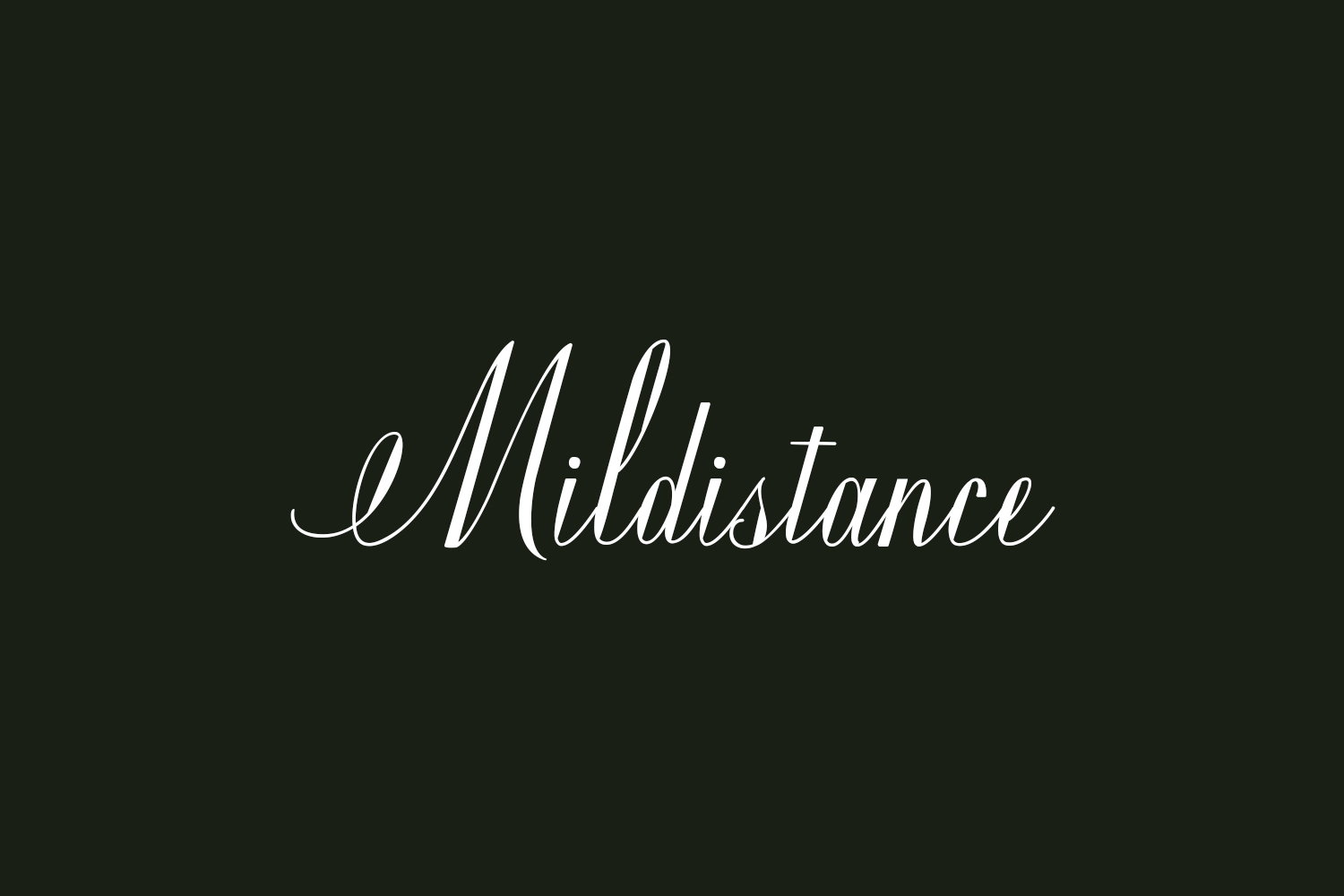
Mildistance Free Font is a beautiful handwritten font, featuring a very nostalgic vibe. As a result, it is suitable for old school theme designs, but also for other various formal projects, such as invitations, labels, logos, magazines, book covers, and the like. Mildistance Free Font was designed by Letterhend Studio and is free for personal use only. Please purchase the full version for commercial use.